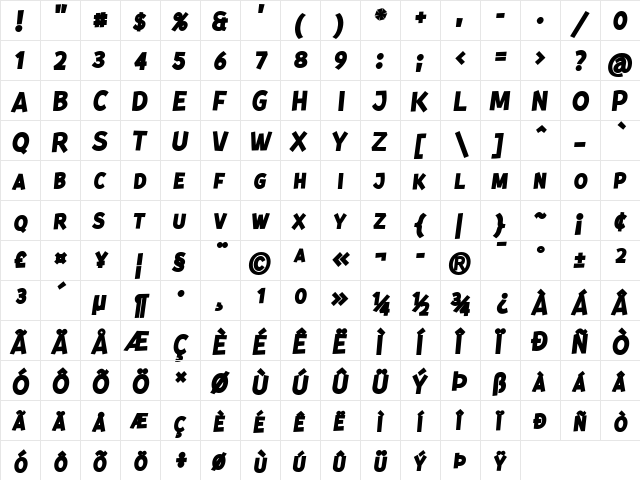
Kurri Island Caps Italics Black Regular
Design Context for Kurri Island Caps Italics Black Typeface
Kurri Island Caps Italics Black is a composed and adaptable typeface that performs quietly and consistently across a wide range of design contexts. Its italic angle brings a sense of urgency and motion to the letterforms.
Pro Tip: Try Kurri Island Caps Italics Black for annotation and caption copy alongside an upright companion — the contrast in angle creates a dynamic but ordered typographic system.